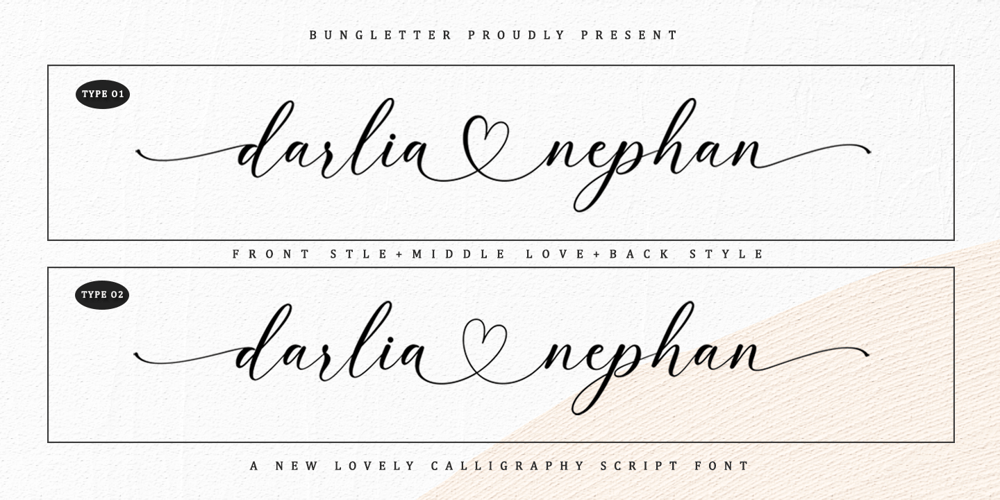
Darlia Nephan Font Family was designed by Muhammad Nazar and published by Bungletter. Darlia Nephan contains 1 styles and family package options. arlia Nephan is a beautiful script perfect for branding, wedding invitations, and other romantic projects. This love centered look makes it perfect for use in all your design projects be it logos, labels, packaging designs, blog titles, posters, wedding designs, social media posts, Instagram designs, etc. Font Features: Lowercase letters start and end swash up and down style 2 Styles Connect hearts Contains full set: -Uppercase -Lowercase -Alternative -Ligatures -Punctuation -Number -Multilingual support. I hope you enjoy this font. If you have any questions, feel free to message me ๐ Thank you for your purchase!